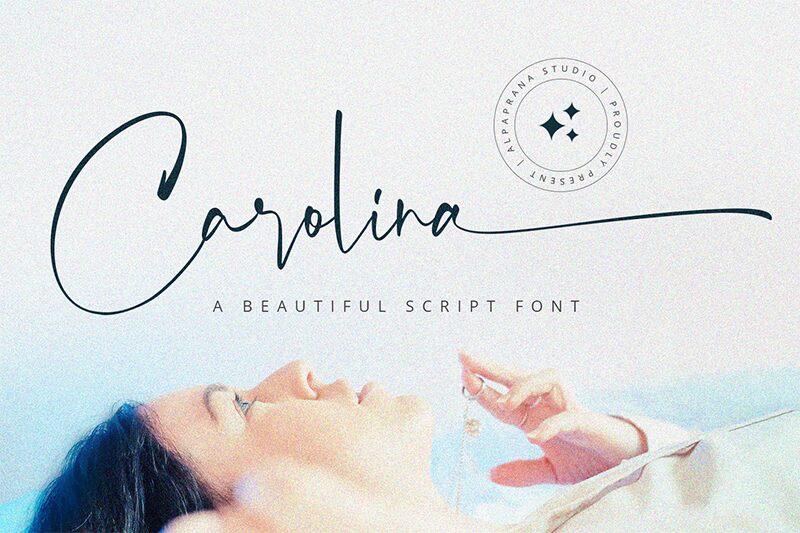
Carolina
Carolina, crafted by Alpaprana Studio, is a captivating handwritten signature font that exudes elegance and sophistication. The light, organic strokes create a sense of fluidity and movement, lending an authentic, personalized touch to any design. This font's unique character and expressive nature evoke emotions of warmth, individuality, and attention to detail.
The versatility of Carolina makes it a compelling choice for a wide array of design applications. Its signature-inspired aesthetic lends itself beautifully to branding, stationery, invitations, and editorial layouts, infusing a touch of refined charm and personalization. Whether crafting a luxurious wedding suite or designing a chic product packaging, Carolina's natural flow and refined sensibility can elevate the overall aesthetic.